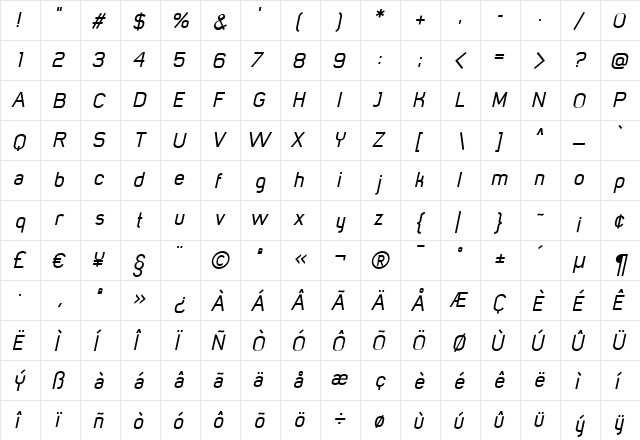
Mister Giacco Medium Italic
Design Context for Mister Giacco Medium Typeface
Mister Giacco Medium is a composed and adaptable typeface that performs quietly and consistently across a wide range of design contexts. Its italic angle brings a sense of urgency and motion to the letterforms.
Pro Tip: Try Mister Giacco Medium for annotation and caption copy alongside an upright companion — the contrast in angle creates a dynamic but ordered typographic system.